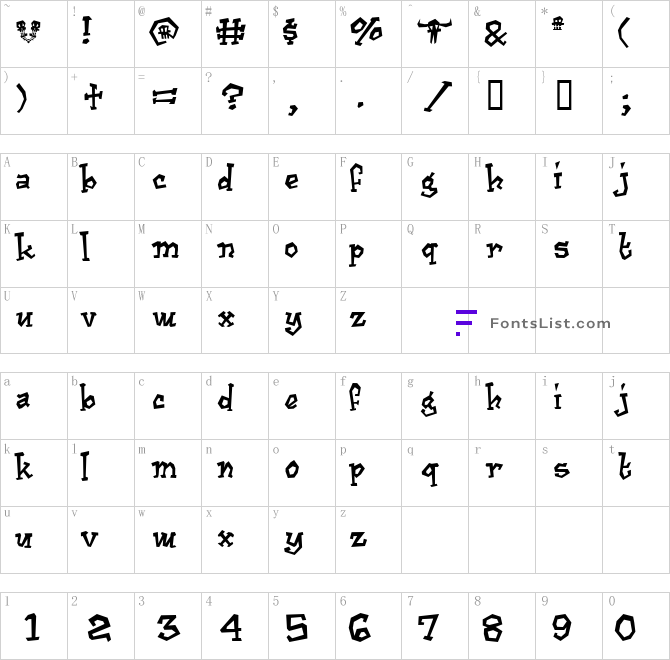
- Font Name:Cajun Boogie
Cajun-Boogie.ttf is a very beautiful artistic font, Cajun-Boogie.ttf is widely used in the design and printing of various books and pictures,Cajun-Boogie.ttf has a strong visual impact,Cajun-Boogie.ttf is a commonly used font in newspapers, magazines and books, and is used in posters, e-commerce Poster design, store design, logo design, font design and other fields.Cajun-Boogie.